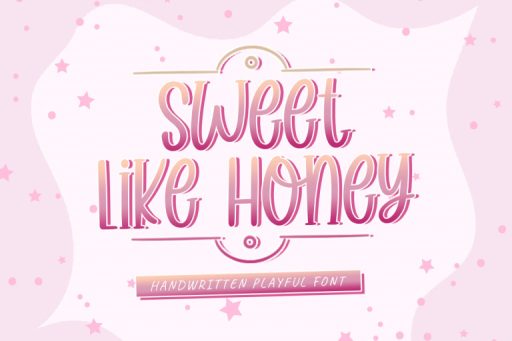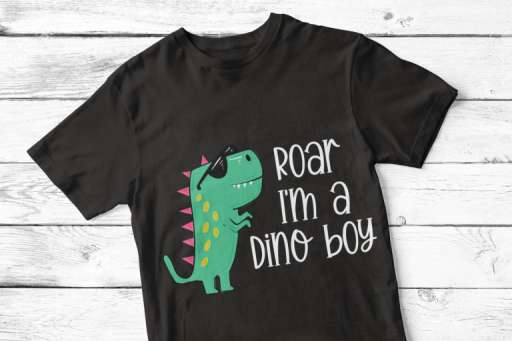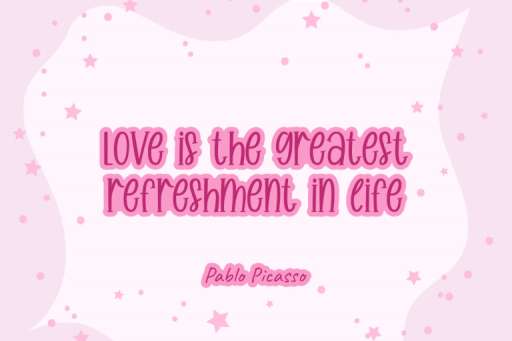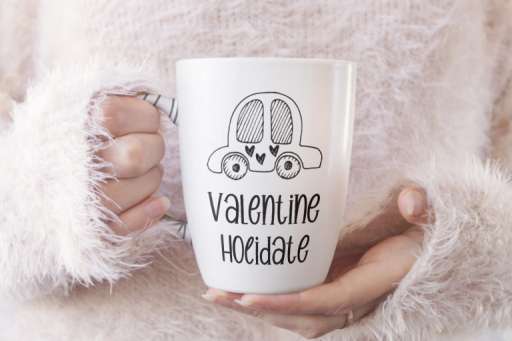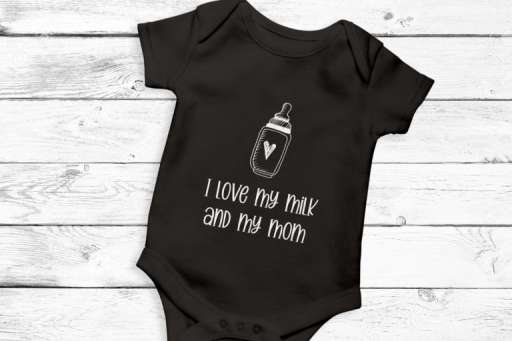
Sweet Like Honey Regular
Sweet Like Honey Font– Cute Display Font
Sweet Like Honey is a handwritten serif-sans serif font with a very charming appearance and perfect for many design projects. This font is perfect for quotes, shirt designs, websites, branding, children’s designs, SVG designs, blogs, logos, invitations, and more!